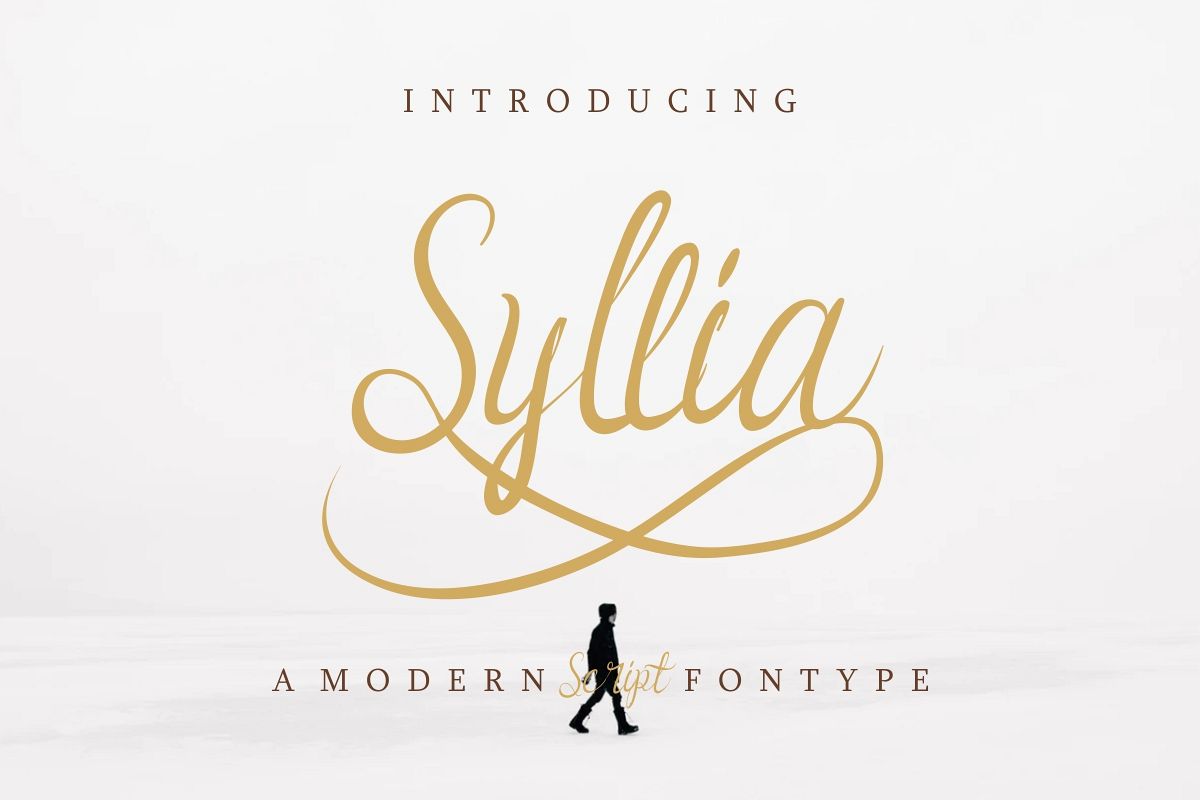
Syllia
Please meet our newest font family : Syllia !
Syllia is a script font that comes with two styles. It’s natural hand Calligraphy Script Font.  It also support multilanguage accentsWhat’s include on the zip :